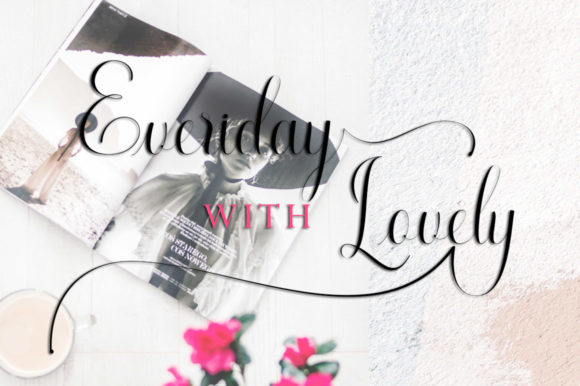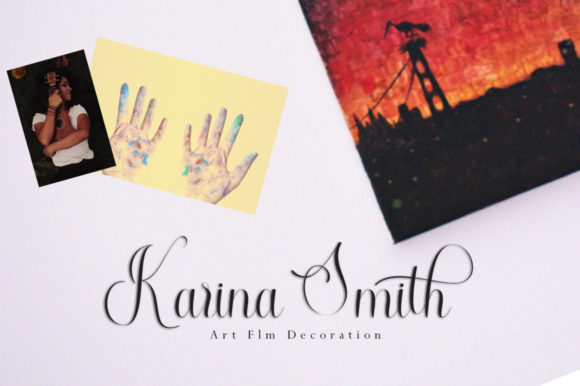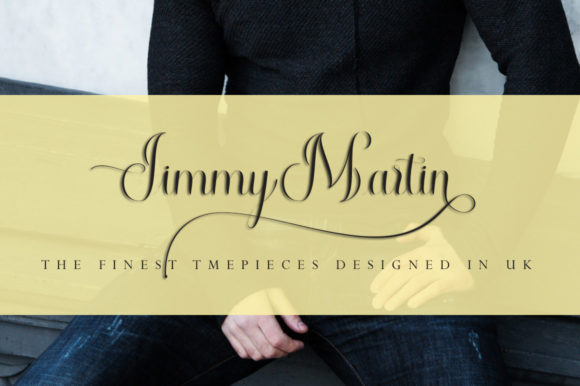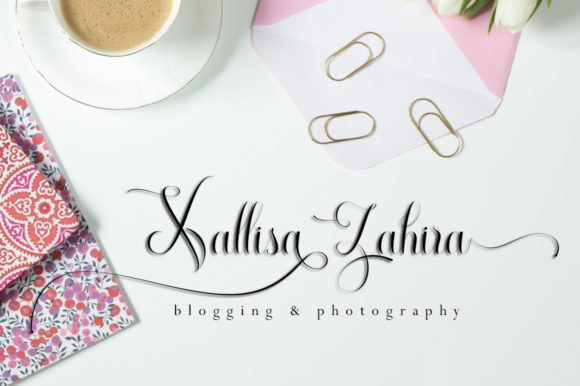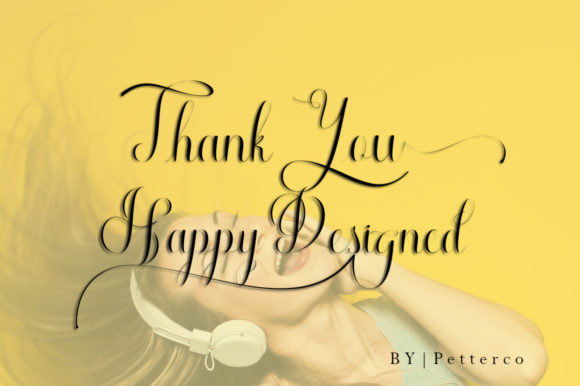
Introduction to Santhiika Font
Have you ever been stuck in front of a blank canvas, struggling to find the perfect font to bring your creative project to life? The moment of truth finally arrived when I stumbled upon the beautiful Santhiika Font. Its fresh and modern script style instantly caught my attention, and I couldn’t wait to dive deeper into its world of elegance and sophistication.
As designers, we’re always on the lookout for high-quality fonts that can elevate our work and make it stand out. The Santhiika Font is a game-changer, offering a unique blend of handmade calligraphy and classic charm. Its versatility makes it perfect for various applications, from greeting cards and magazine titles to business cards and wedding invitations. And the best part? It’s available for free download, complete with a transparent background, making it a valuable design resource for any creative project.
Key Features of Santhiika Font
- Unique, hand-drawn style with a transparent background, allowing for seamless integration into designs.
- Ideal for designers looking for a distinctive and creative font to elevate their projects.
Honest Review: Santhiika Font
As a designer, I’m always on the lookout for unique and high-quality design resources to elevate my creative projects. The Santhiika Font is one such find that has caught my attention recently. With its elegant and sophisticated look, this font is perfect for adding a touch of class to any design.
- ✨ High-quality design that is perfect for creative projects.
- ✨ The font comes with a transparent background, allowing for seamless integration with any design.
- ⚠️ Limited character set, which may be a concern for designers who require a wide range of characters.
Overall, I’m impressed with the Santhiika Font. Its elegant design and free download make it an excellent addition to any designer’s toolkit. While it may have some limitations, it’s a great resource for personal or small-scale projects.
For the most out of the Santhiika Font, use it for headings and titles, and pair it with other fonts for body text. You can also experiment with different font sizes and styles to create visually appealing designs.
The Santhiika Font is ideal for various design projects, including logos, brochures, business cards, and social media graphics. Its high-quality design and transparent background make it a popular choice among designers.